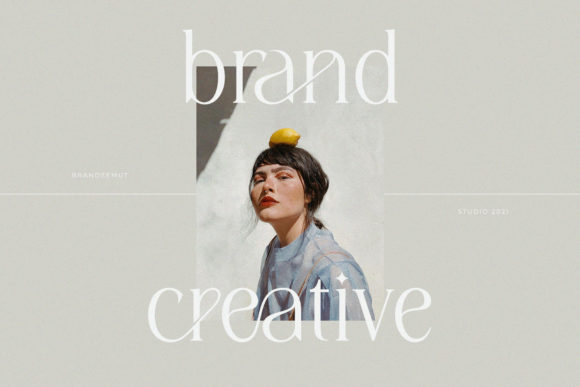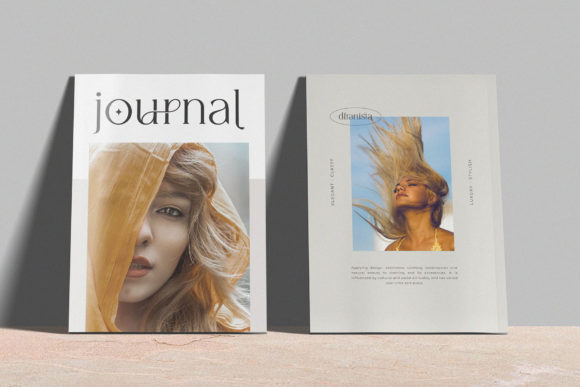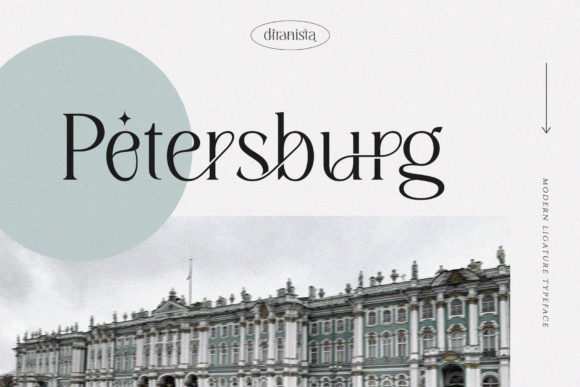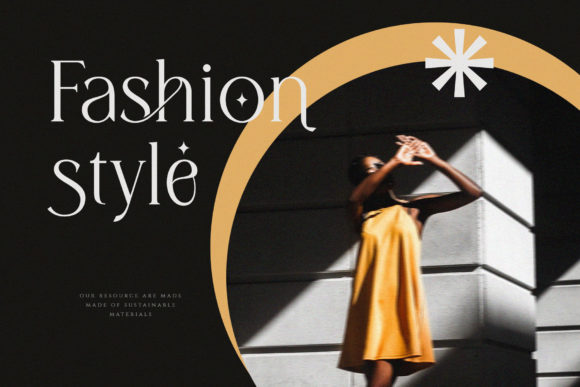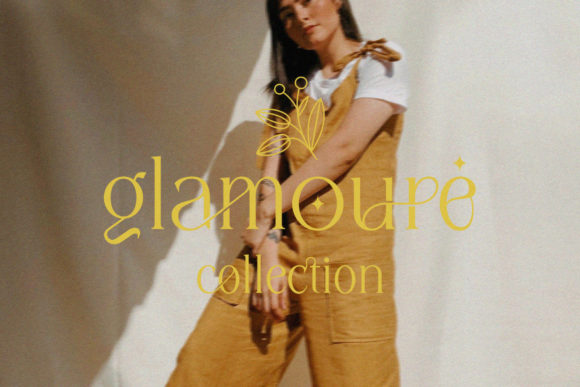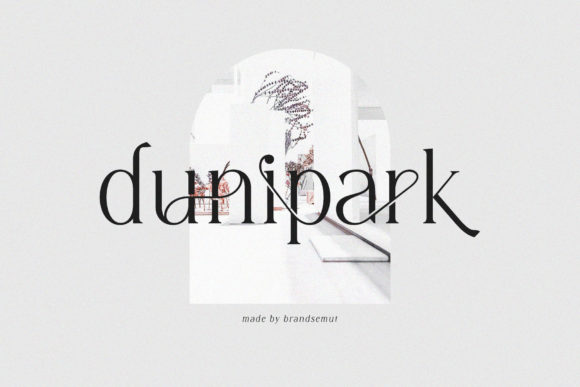
Introduction to Diranista Font
Have you ever found yourself staring at a blank page, trying to come up with the perfect font to bring your creative project to life? The search for that perfect font can be a daunting task, especially when you’re working on a high-quality design that requires a touch of elegance. But what if I told you that you’re just a click away from discovering a game-changing font that will elevate your design resource to the next level?
Enter the Diranista Font, a stunning modern serif font that boasts a delicate and classy look that’s sure to impress. With its transparent background and high-quality design, this font is a valuable addition to any designer’s library. Whether you’re working on a creative project that requires a sophisticated touch or simply want to add a bit of flair to your design, the Diranista Font is an excellent choice.
Key Features of Diranista Font
- Diranista Font features a transparent background, allowing for seamless integration with various design elements.
- Diranista Font is available in a single font size, but its high resolution (up to 2048 x 2048 pixels) ensures crisp and clear rendering.
- This font is perfect for use in logos, branding materials, and other design elements where a touch of elegance is required.
- Its clean and minimalist design makes it a great addition to any design project, from corporate to creative ventures.
Honest Review: Diranista Font
I recently had the chance to work with the Diranista Font, and I’m excited to share my honest review with you. As a designer, I’m always on the lookout for high-quality design resources to enhance my creative projects. The Diranista Font is a solid addition to any design arsenal.
- What works well: ✨ The font is incredibly versatile and works well for a variety of design projects, from logos to typography-heavy websites. The high quality of the font ensures that it looks great on both desktop and mobile devices.
- What works well: ✨ The font’s transparent background makes it easy to use on complex backgrounds and textures, giving designers more flexibility in their design choices.
While the Diranista Font is a great resource, I did encounter a few limitations:
- Limitations: ⚠️ The font may not be suitable for very small text sizes, as it can become difficult to read.
- Limitations: ⚠️ The font is not optimized for certain languages, which may limit its use in international design projects.
Overall, I’m impressed with the Diranista Font. It’s a free download that’s perfect for designers looking to add some flair to their creative projects. With its high quality and versatility, it’s a valuable addition to any design resource library.
Diranista Font Overview
The Diranista Font is a high-quality design resource perfect for any creative project that requires a unique touch. This free download offers a transparent background, making it easy to integrate into your design.
Common Use Cases for Diranista Font
- Graphic design and visual identity
- Print design and marketing materials